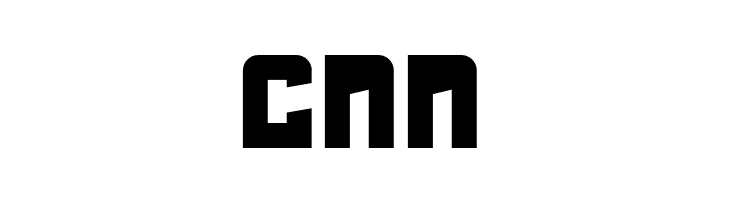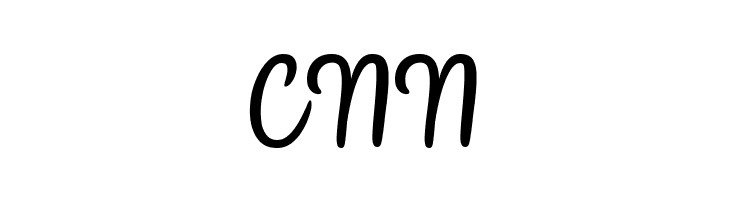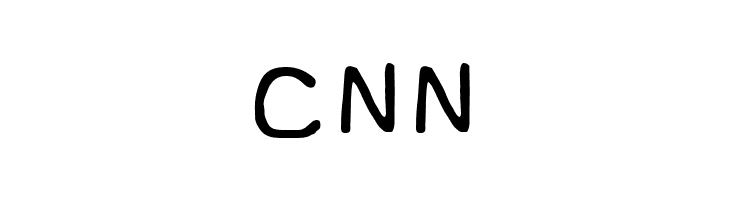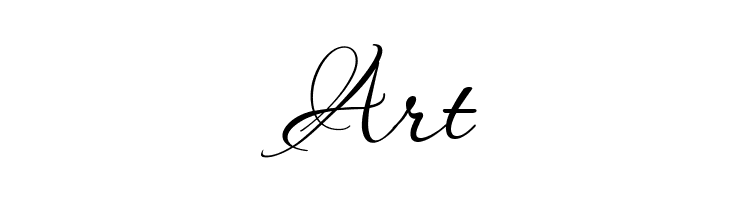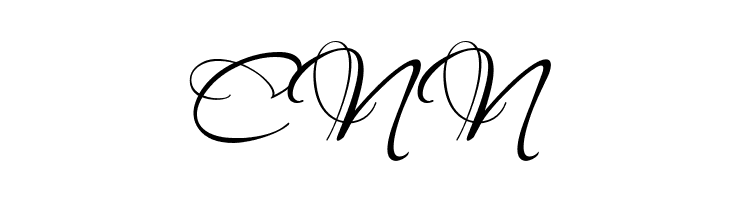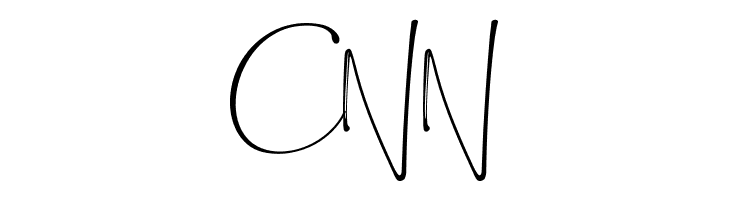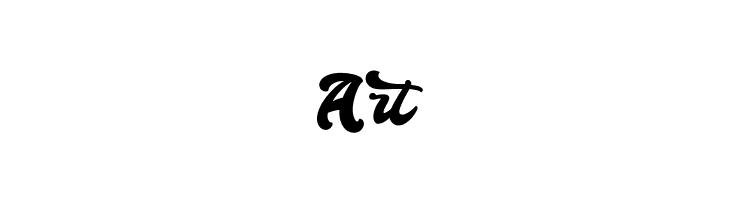
( Fonts by Rick Mueller )
A bold, patriotic-themed font with stars and stripes, ideal for decorative use.
( Fonts by Rick Mueller )
A festive, holiday-themed font with bold letters decorated with holly and snowflakes.
A playful, casual handwritten font with smooth, rounded edges.
A bold, geometric font with a modern and assertive style.
( Thirtypath - www.thirtypath.com )
A bold, expressive script font with flowing, dynamic strokes.
( Fonts by Rick Mueller )
A bold, hand-painted style font with dynamic and expressive characters.
( Sholeha Anata )
A lively and elegant script font with flowing, cursive letterforms.
A flowing, cursive script font with smooth, rounded edges and consistent stroke width.